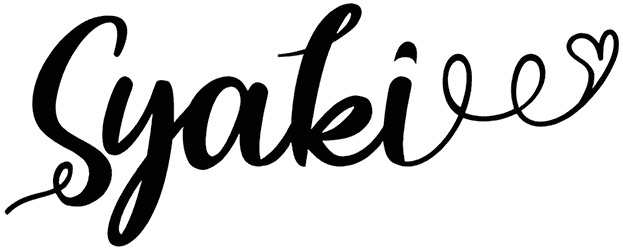
Syaki Font
With a lovely and modern face, you can adorn a lot of elegant designs. Syaki is a cute handwritten font with a hand lettering style and nice curves. This script font with a full backup of characters represents a perfect item to promote your creative projects from wedding cards to social media posts.